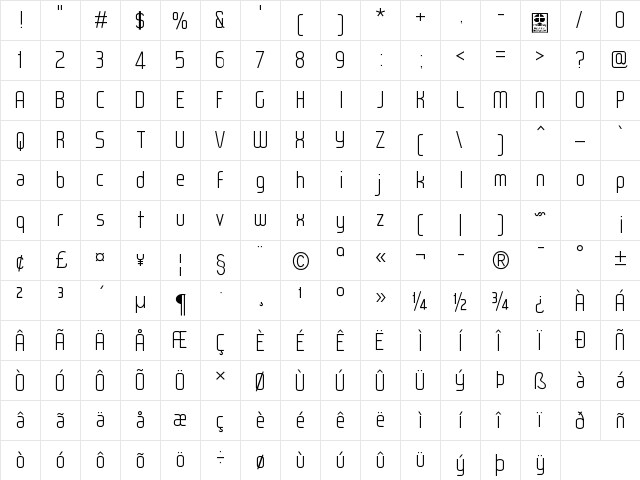
WOX~Modelist Light Demo Regular
| Foundry | StudioTypo |
| Designer | MEHMET ABACI |
Design Context for WOX~Modelist Light Demo Typeface
WOX~Modelist Light Demo is a composed and adaptable typeface that performs quietly and consistently across a wide range of design contexts. The delicate stroke weight brings airiness and refinement to layouts.